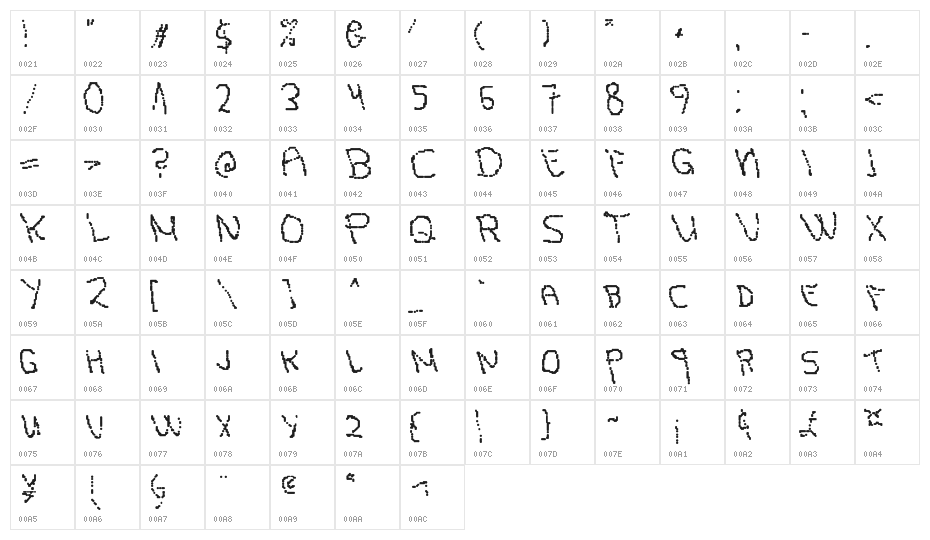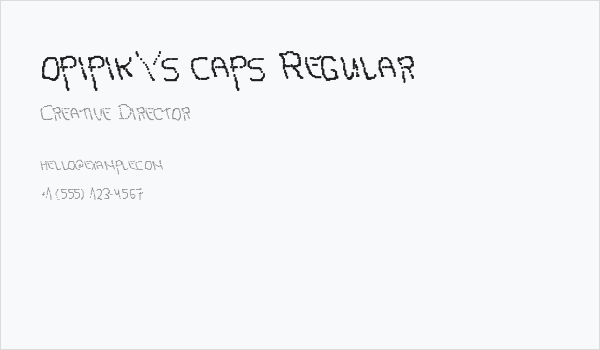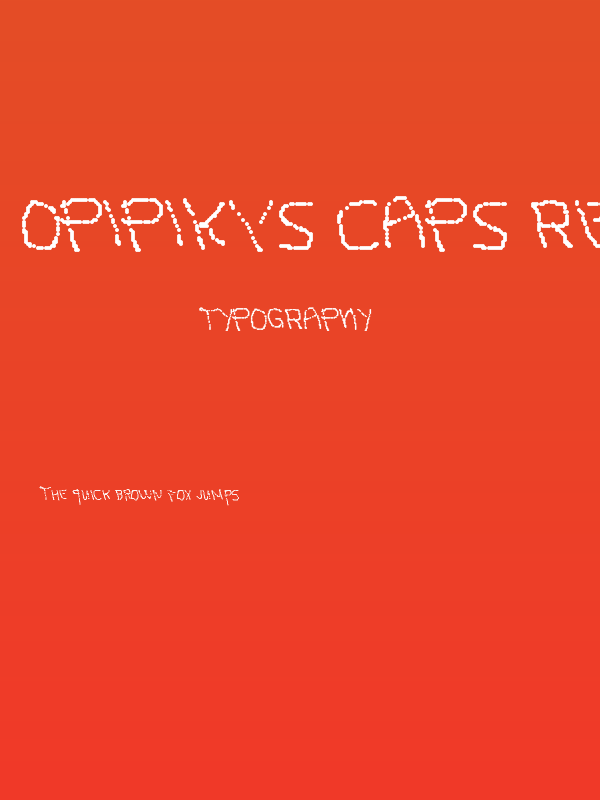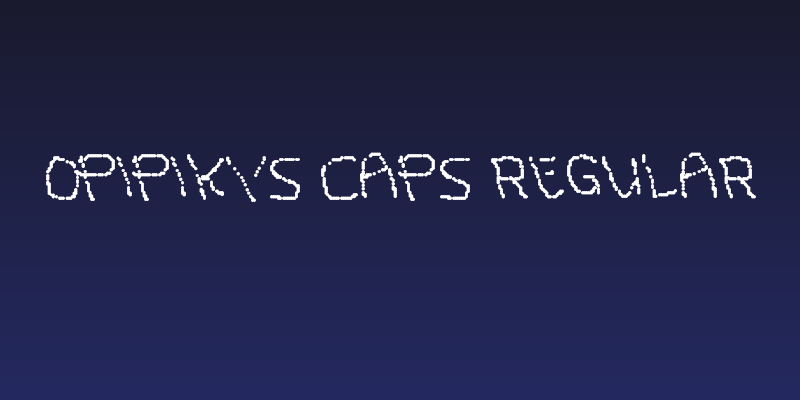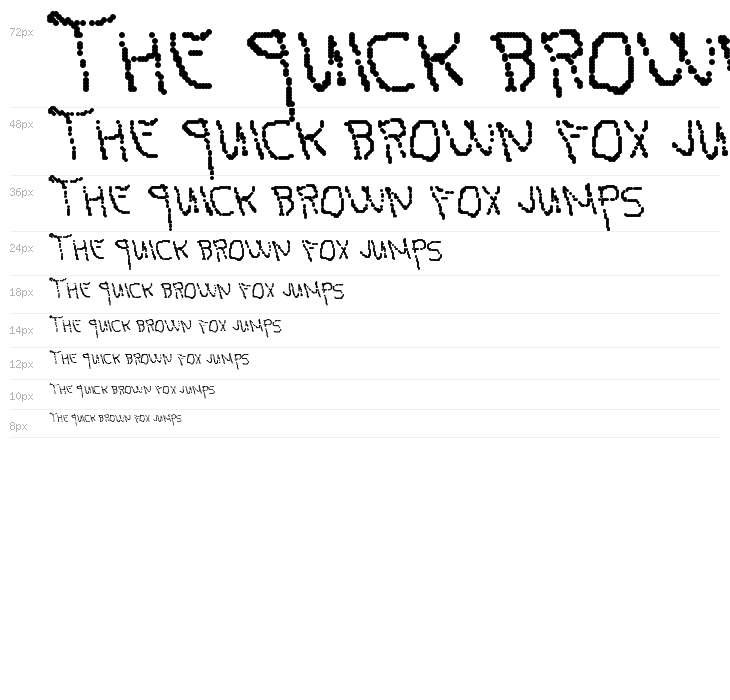
opipik's caps Regular Font
opipik's caps Regular Description
This font features a unique design composed of small, circular dots forming each character. The letters and numbers have a playful, almost digital appearance, reminiscent of LED displays or dot matrix printers. The characters are evenly spaced, maintaining a consistent rhythm across the typeface. The overall look is modern and experimental, making it stand out for creative projects. The font includes both uppercase and lowercase letters, numerals, and a selection of special characters, all maintaining the dotted style.
| Use Case | Headlines, Logos, Creative Projects |
| Proposed Projects | Ideal for digital art, creative posters, tech-themed designs, or any project seeking a futuristic and playful touch. |